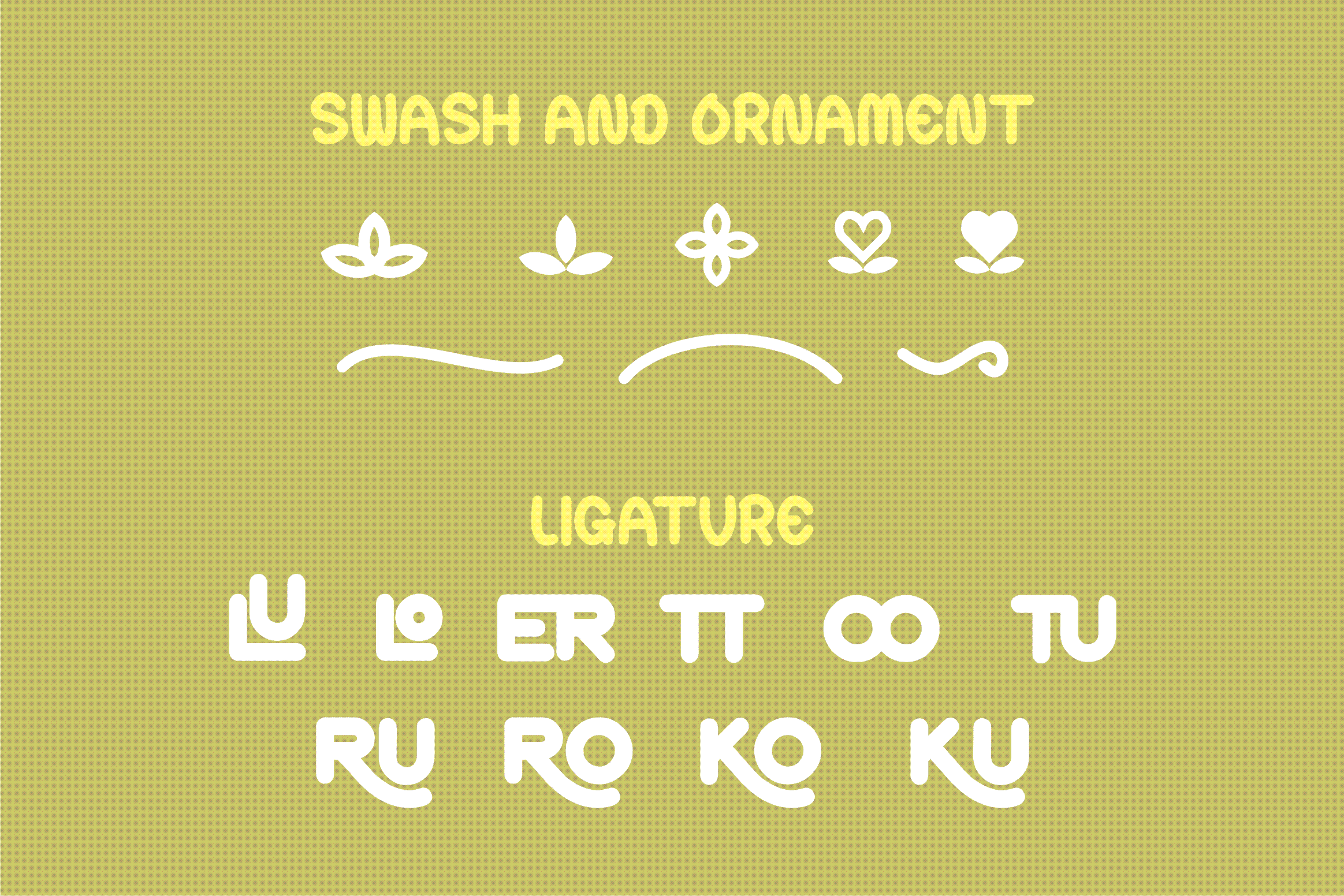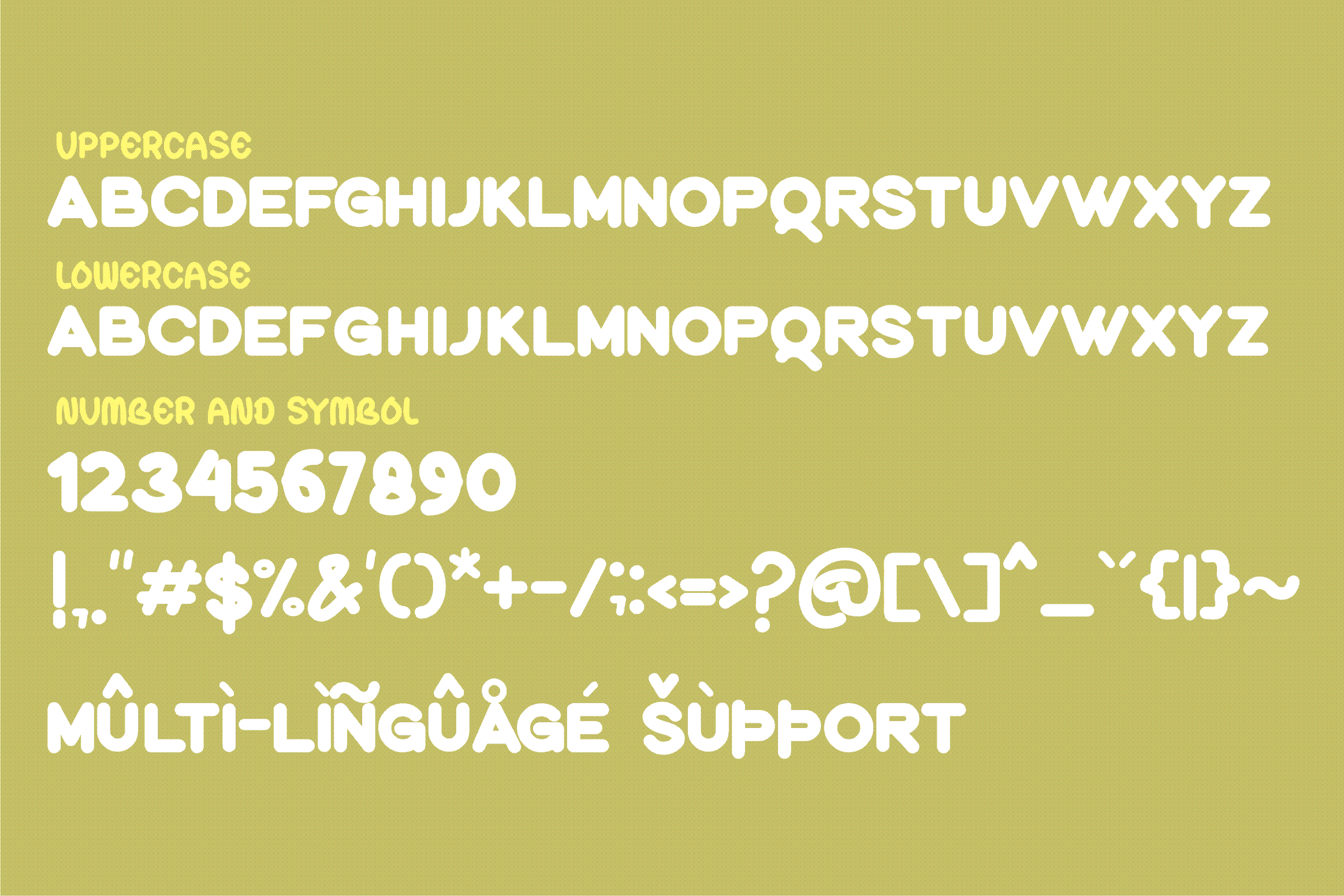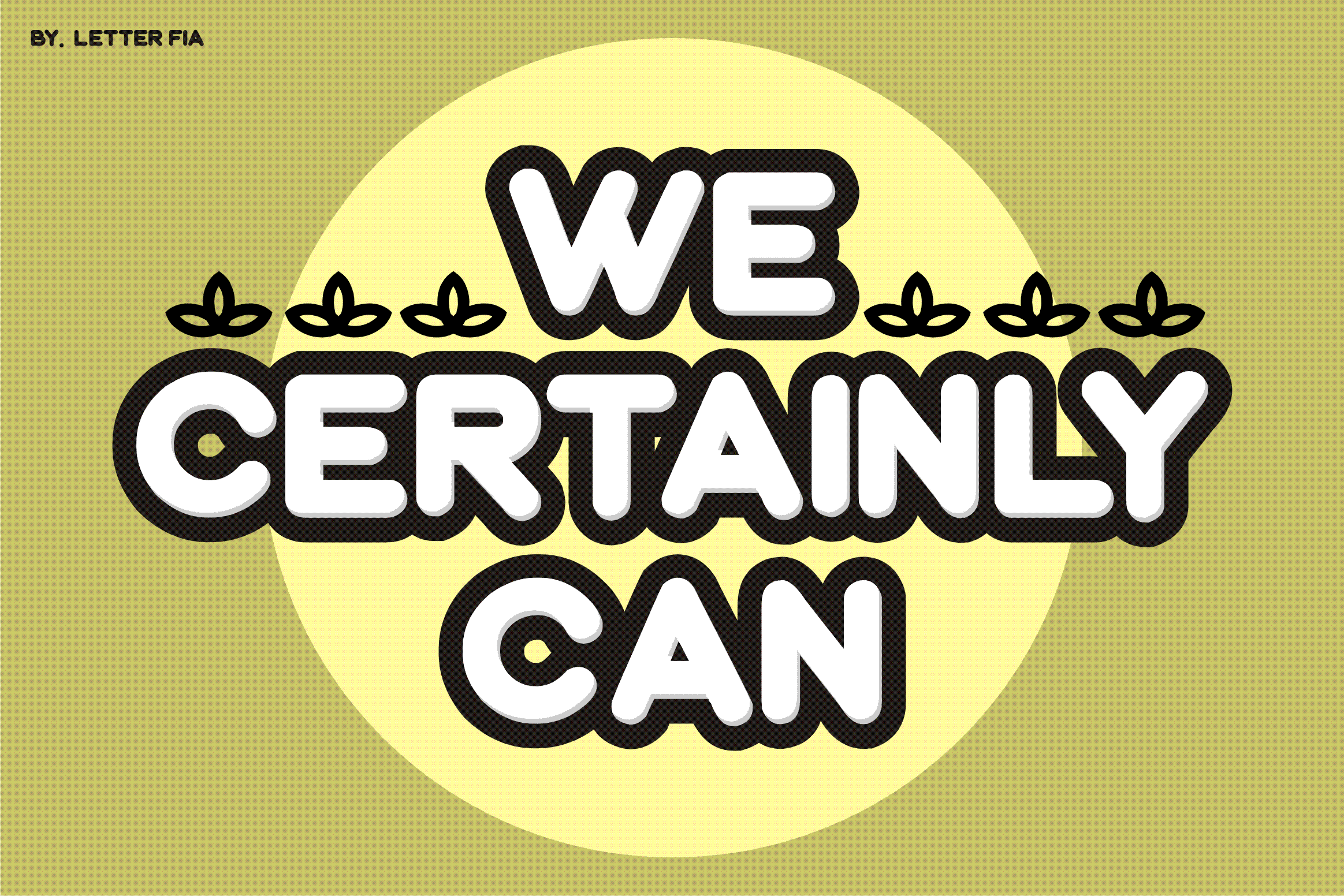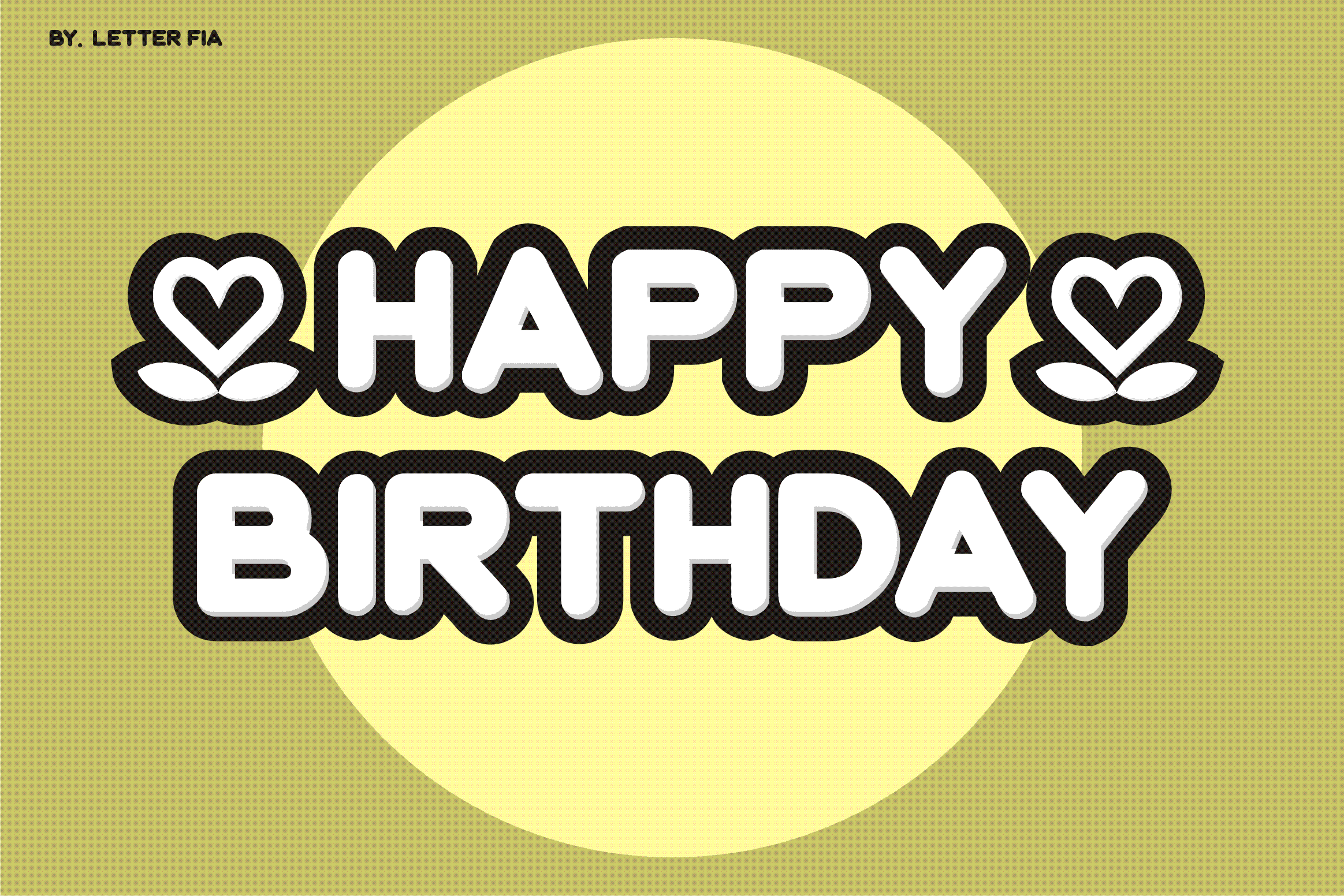
Loker Font
Loker Display Font
This is a fun and adaptable display font. It can easily be matched to an incredibly large set of projects, so add it to your creative ideas and notice how it makes them stand out!